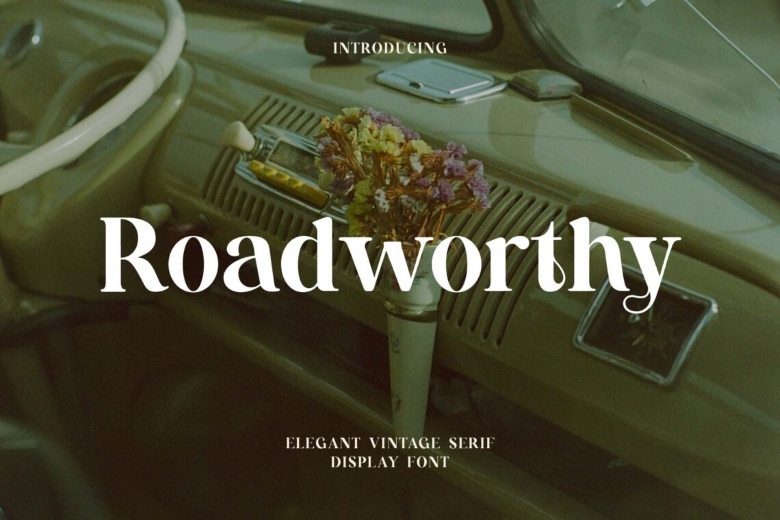
Roadworthy is an elegant vintage serif display font that is creative and inspiring being beautiful, classy, elegant and modern at the same time. This font fits for any type of project including signature, stationery, logo, wedding, typography quotes, magazine or book covers, web headers and everything related to clothing, branding, packaging design etc The branding or the editorial the projected is related to fashion has both – male and female symbolism.
Roadworthy Serif Font